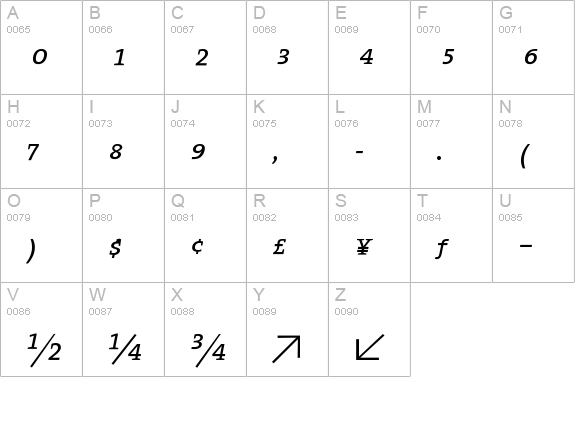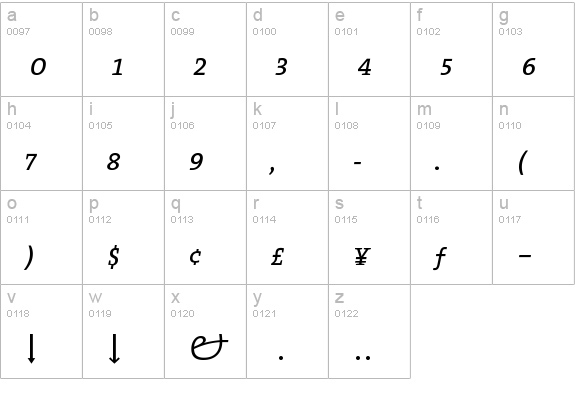
TheSerif Light Expert Italic is a refined, elegant, italic variant in the TheSerif typeface family \xE2\x80\x94 well suited to elegant body text, refined sub-headings, and luxury branding.
TheSerif Light Expert Italic font is a stunning typeface that exudes elegance and sophistication. With its refined and graceful letterforms, this font is perfect for adding a touch of sophistication to any design project. The expertly crafted italic style adds a sense of movement and fluidity, making it ideal for conveying a sense of grace and poise. This font is not only aesthetically pleasing but also highly functional. Its clean and legible design ensures that it can be easily read, even at smaller sizes. Whether you are designing a logo, creating a brochure, or working on a website, TheSerif Light Expert Italic font will elevate your project to a new level of professionalism. One of the best features of TheSerif Light Expert Italic font is that it is freely available to download at FontsMarket.com. This means that you can enjoy the beauty and versatility of this font without any cost. Whether you are a professional designer or a hobbyist, having access to high-quality fonts can greatly enhance your creative endeavors. So, go ahead and download TheSerif Light Expert Italic font today from FontsMarket.com. With its timeless elegance and freely available nature, this font is a must-have for anyone looking to create stunning and sophisticated designs.